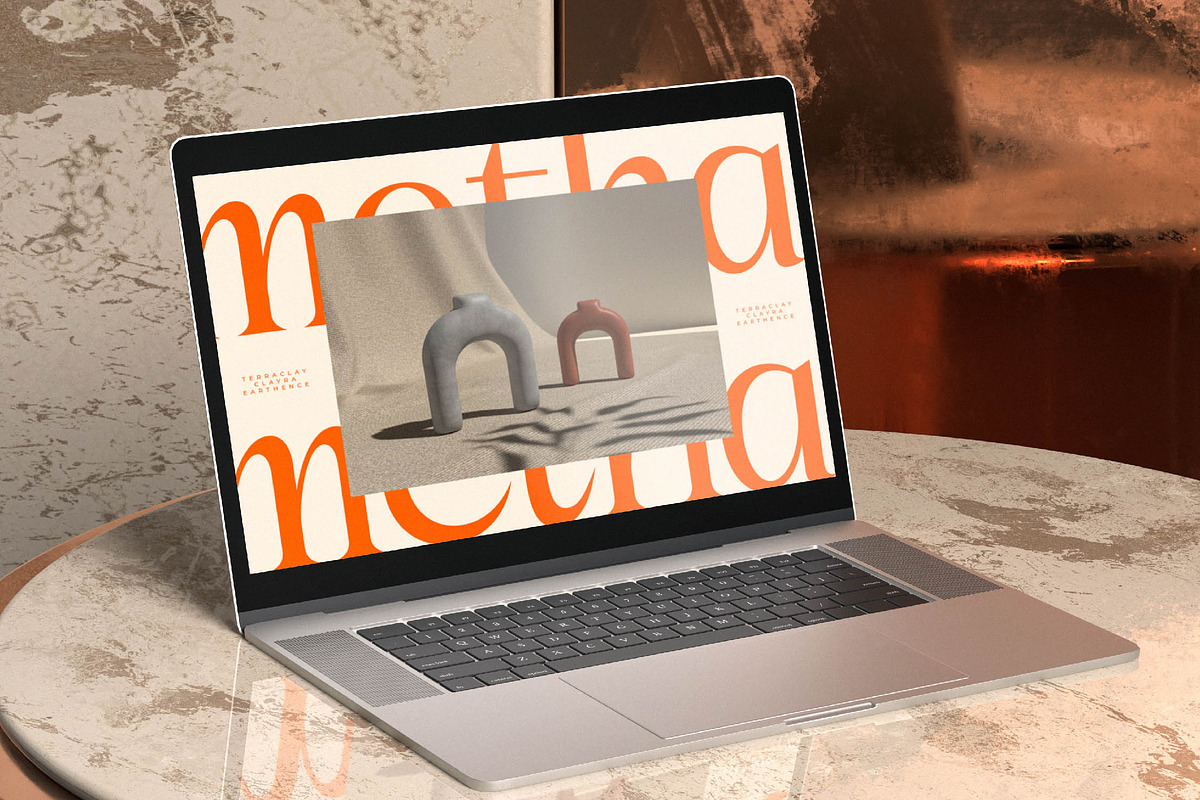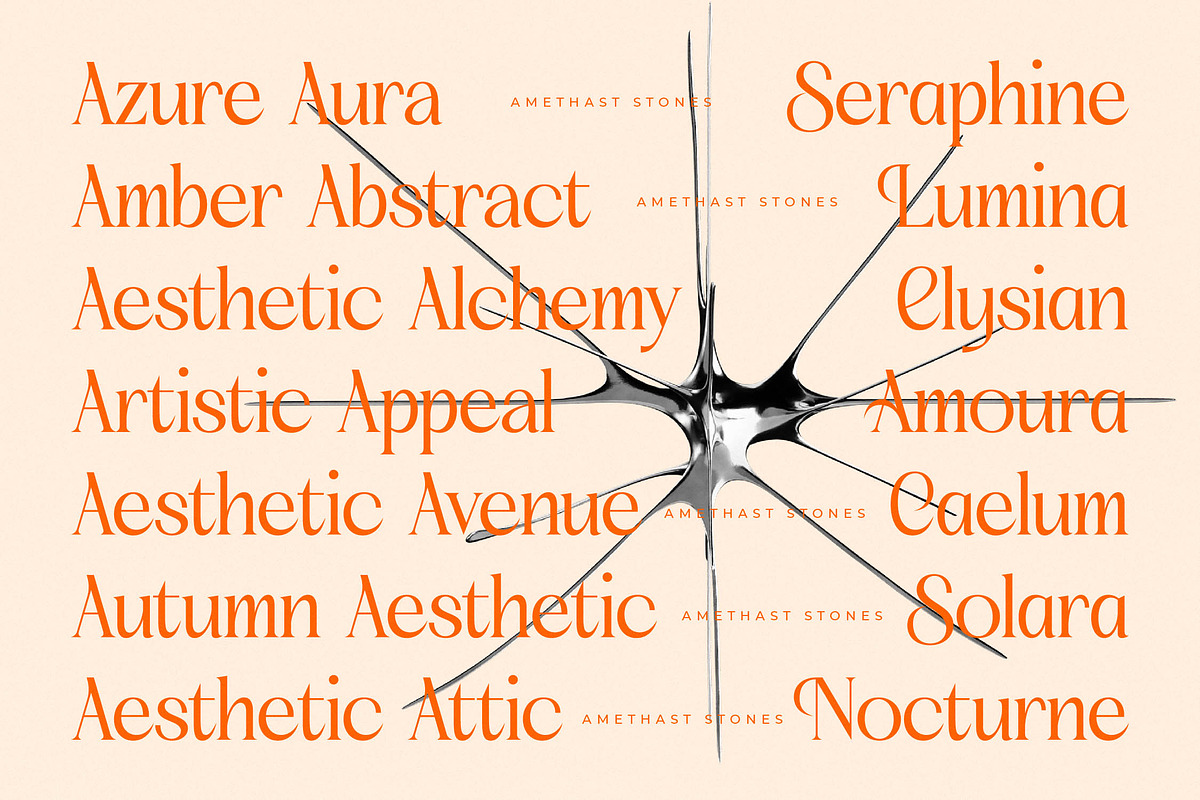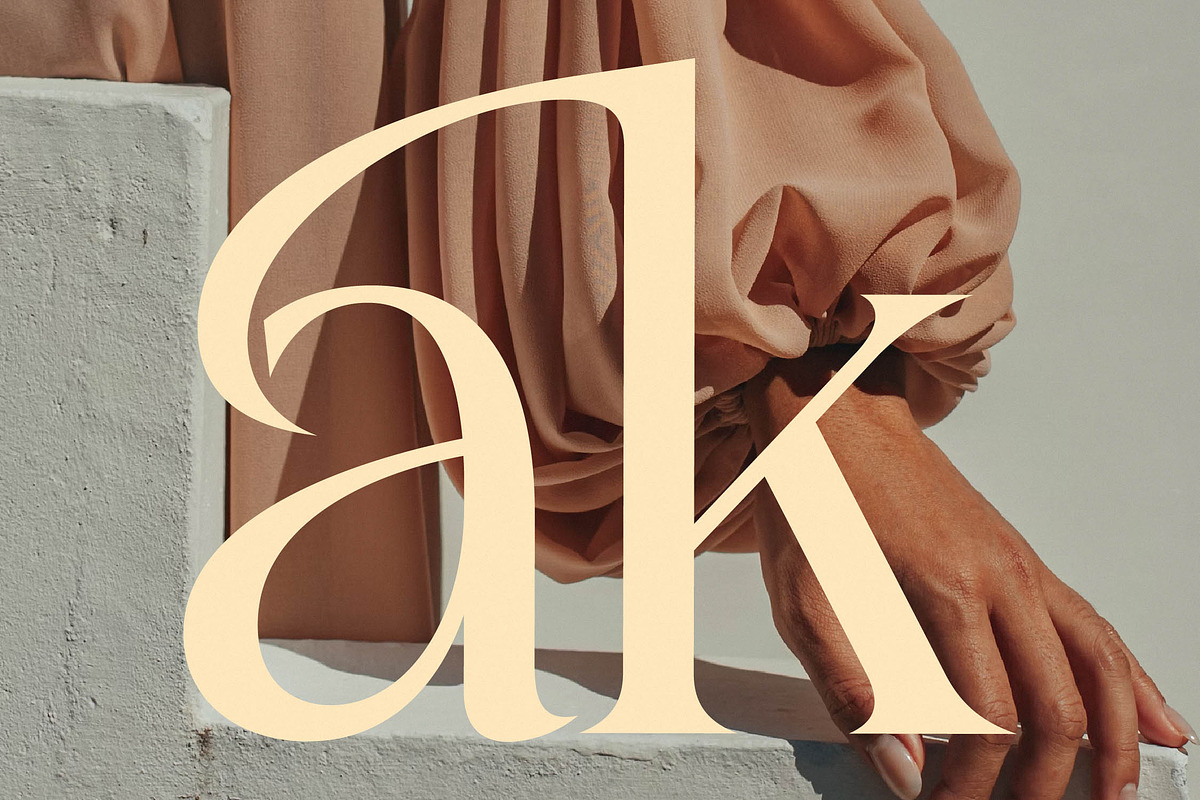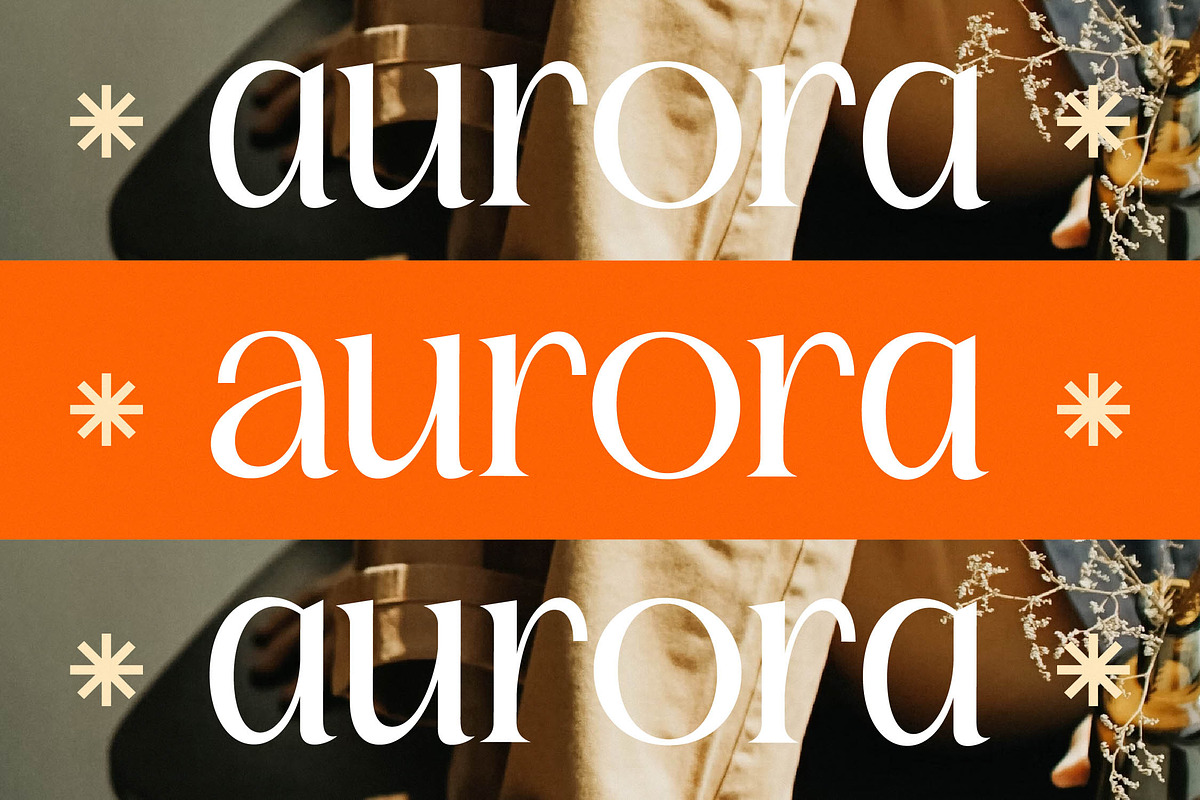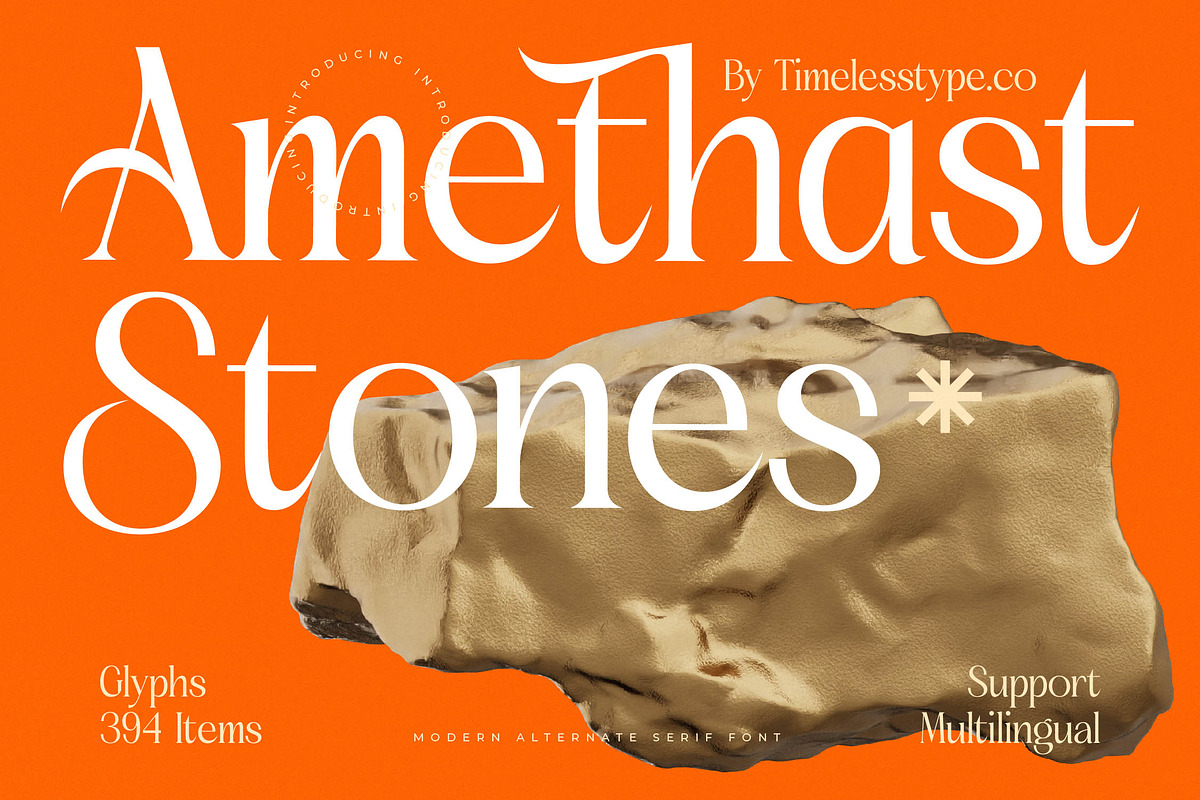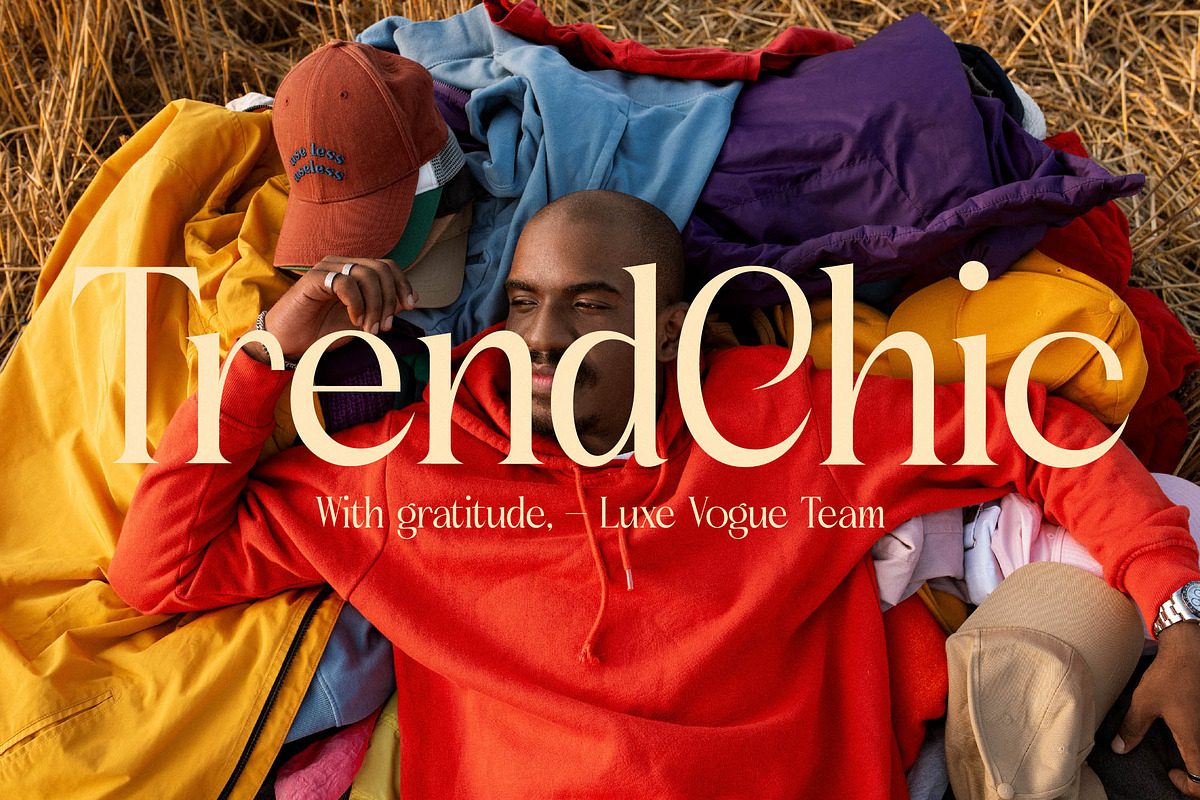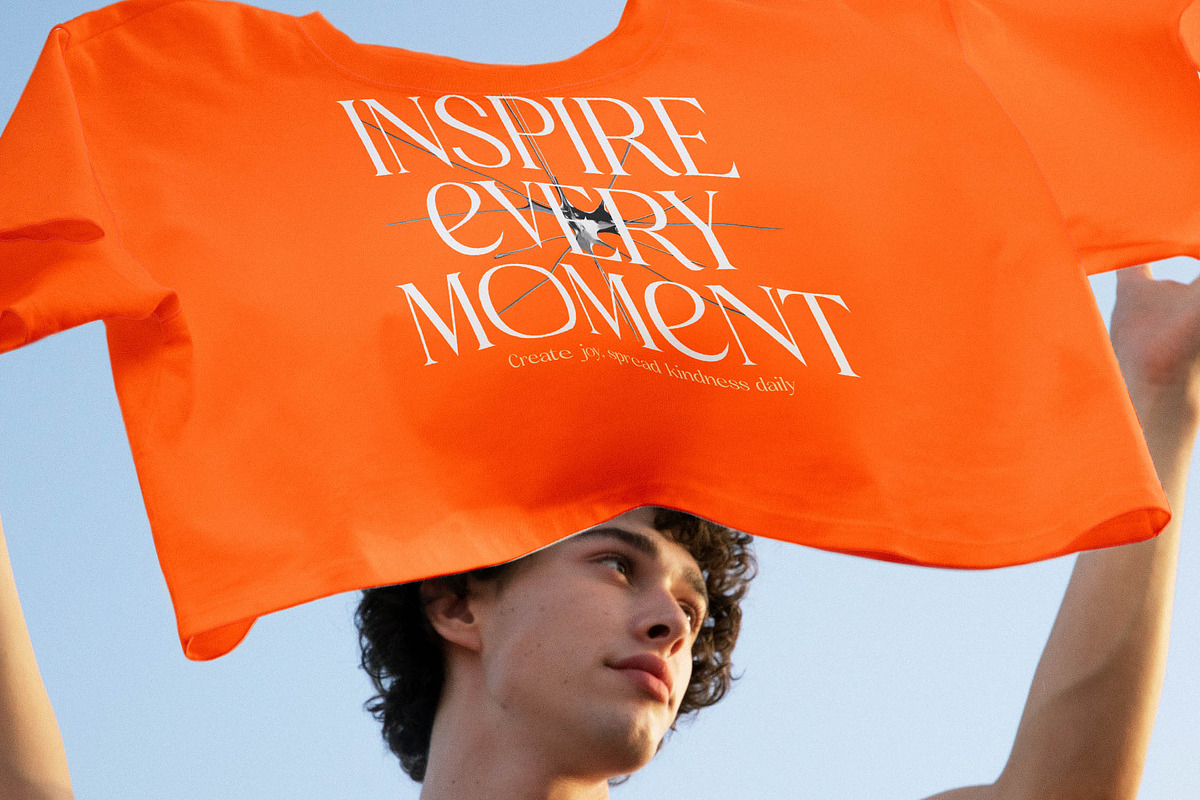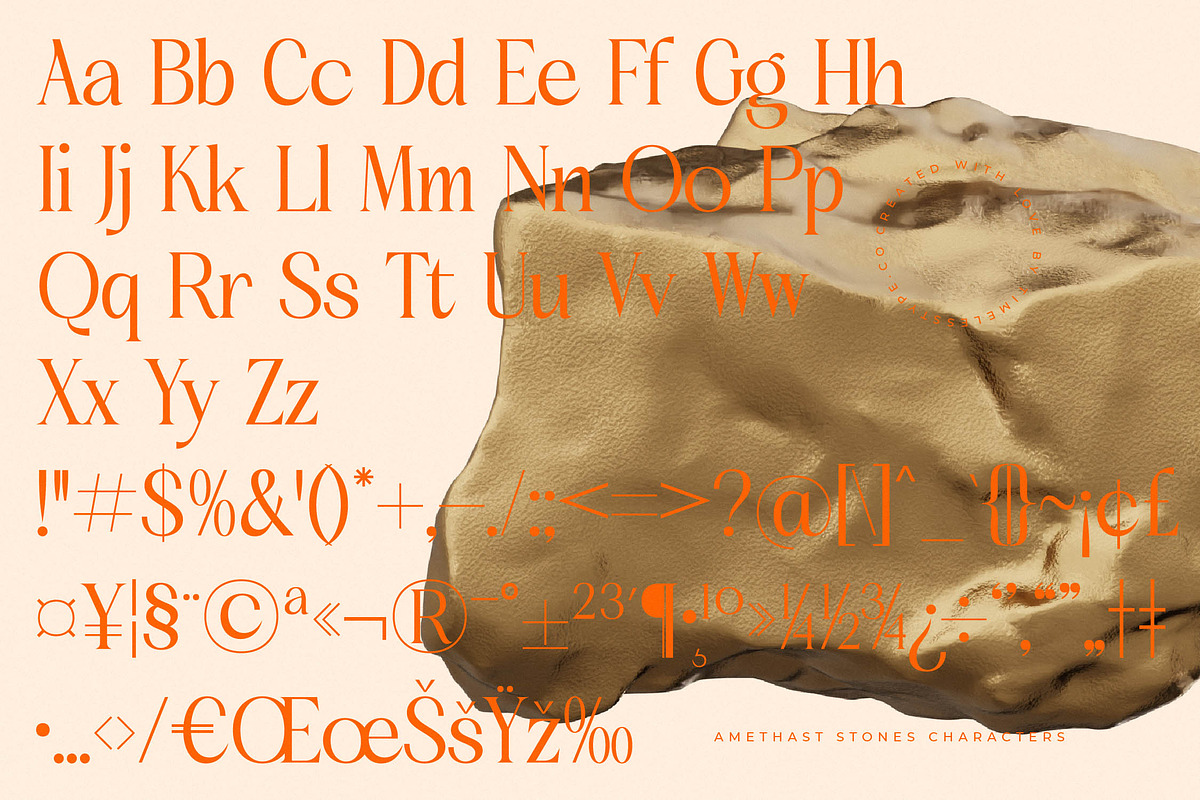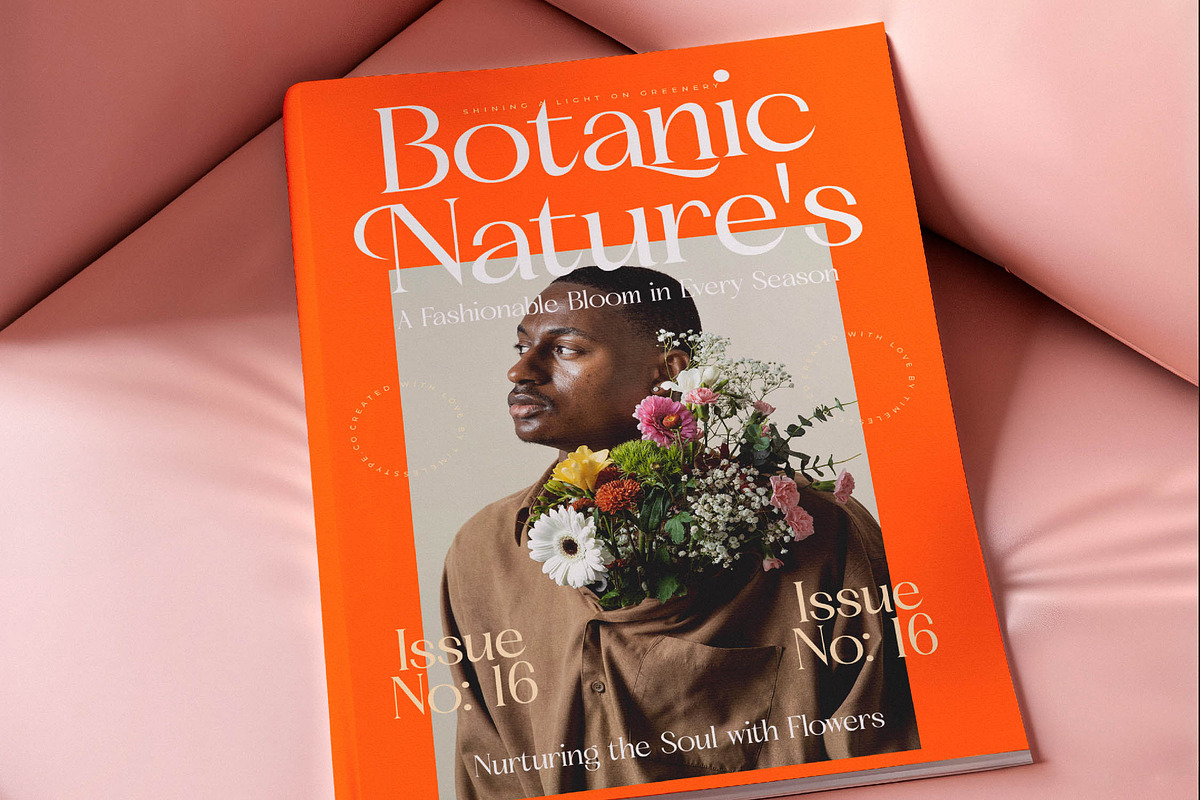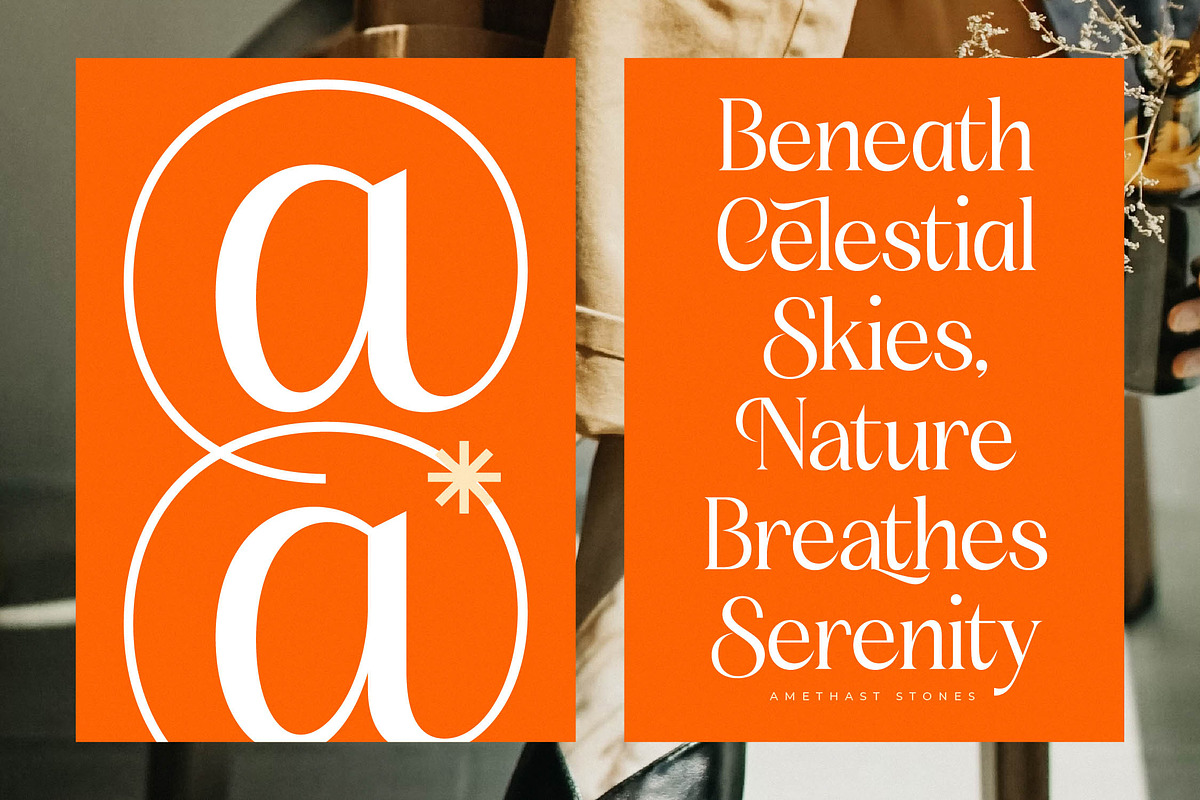
Amethast Stones Modern Serif
Elevate your creative vision with Amethast Stones, a masterfully crafted typeface that balances classical elegance with a contemporary edge. This font is designed to command attention, offering a unique blend of sharp terminals and fluid curves that breathe life into every character.
Inspired by the raw, unrefined beauty of gemstones and the timeless allure of artisanal craftsmanship, this font captures a sense of grounded luxury. Its visual narrative explores the intersection of nature's textures and the precision of modern typography, creating an atmosphere that is both mystical and sophisticated.
Exude confidence in your next project with a modern serif display that defines luxury typography. Amethast Stones provides a high-contrast serif look that is essential for a high-end editorial font, ensuring a powerful branding impact across all digital and print mediums.
Aligned with the current modern serif trend, this typeface is a quintessential choice for designers seeking editorial display fonts that stand out. Its character-driven typography allows for expressive storytelling, making it a perfect match for the bold, minimalist aesthetics dominating the creative market today.
This versatile typeface is a dream for professional logo design and comprehensive brand identity projects that require a touch of class. From high-fashion branding and chic editorial layouts to luxury product packaging, it also serves as a stunning choice for wedding invitations and high-end fashion lookbooks.
The font comes packed with professional features including a rich set of ligatures and creative alternates that allow for endless customization. With decorative swashes and full multilingual support, including international characters, you can take your designs to a global audience with ease.
- Ligature 13 Alternate 49